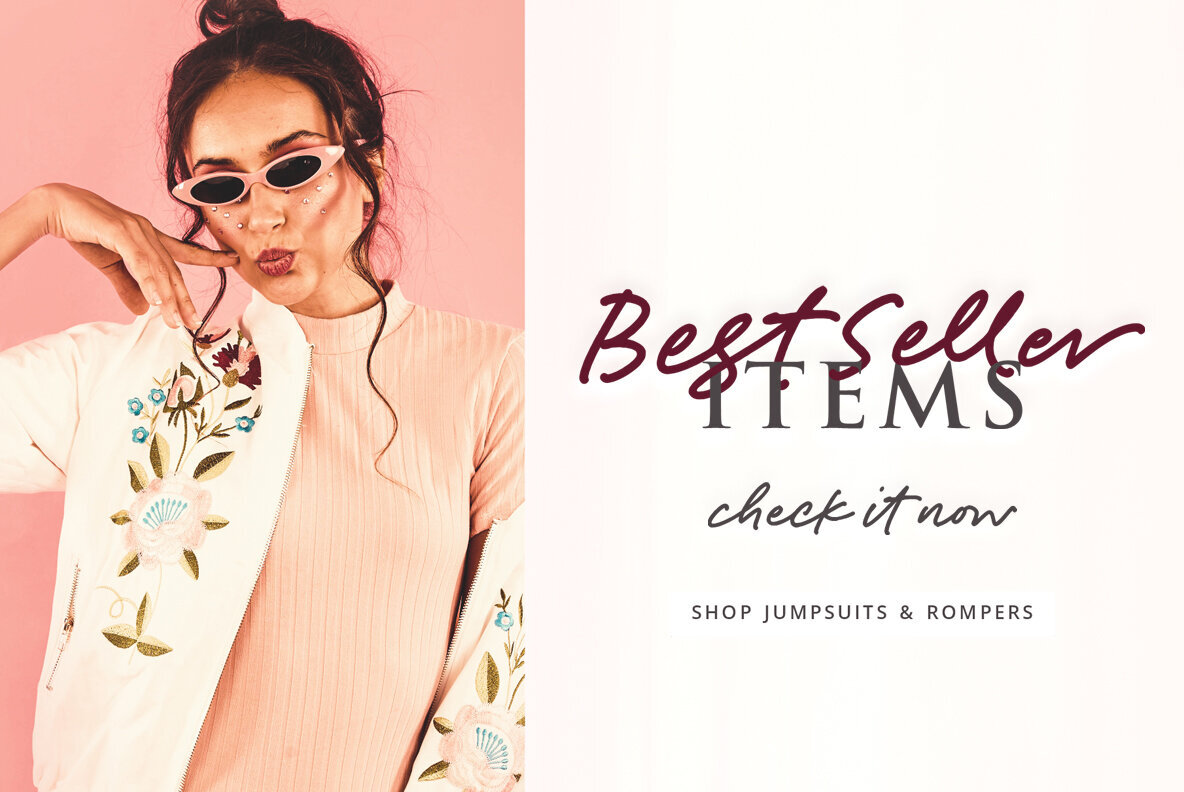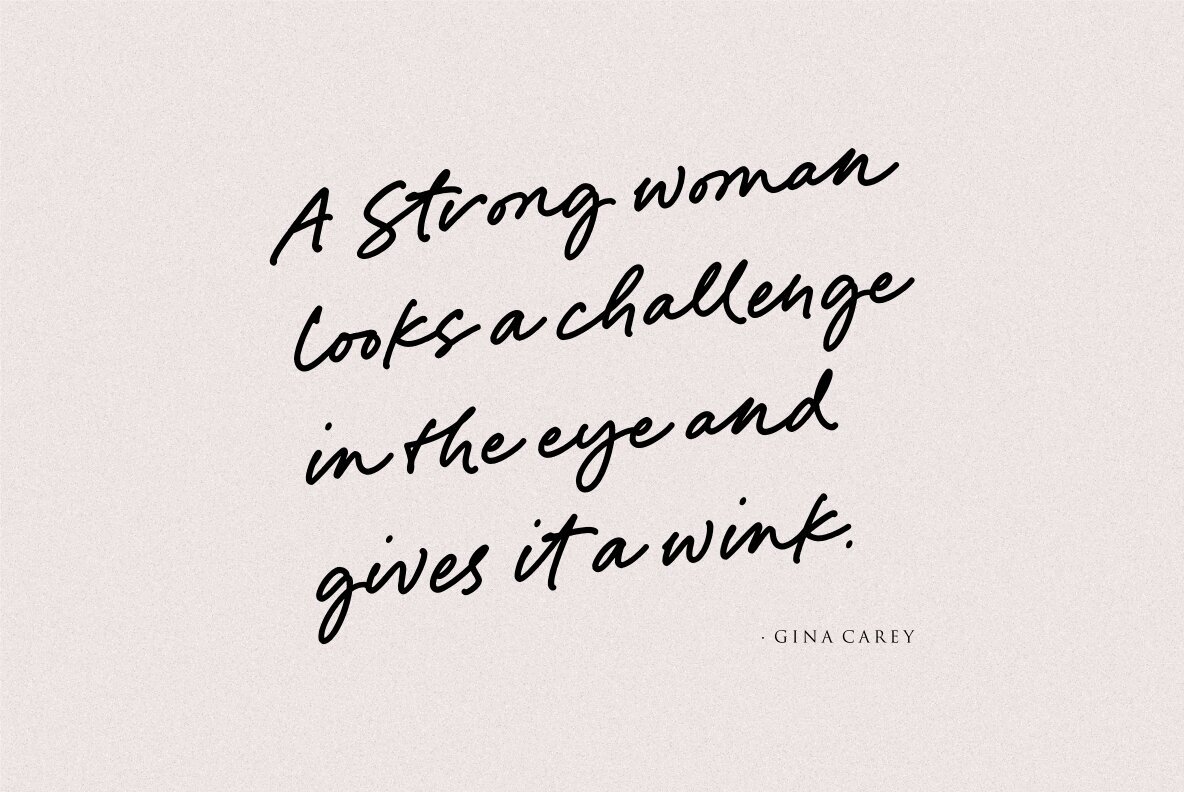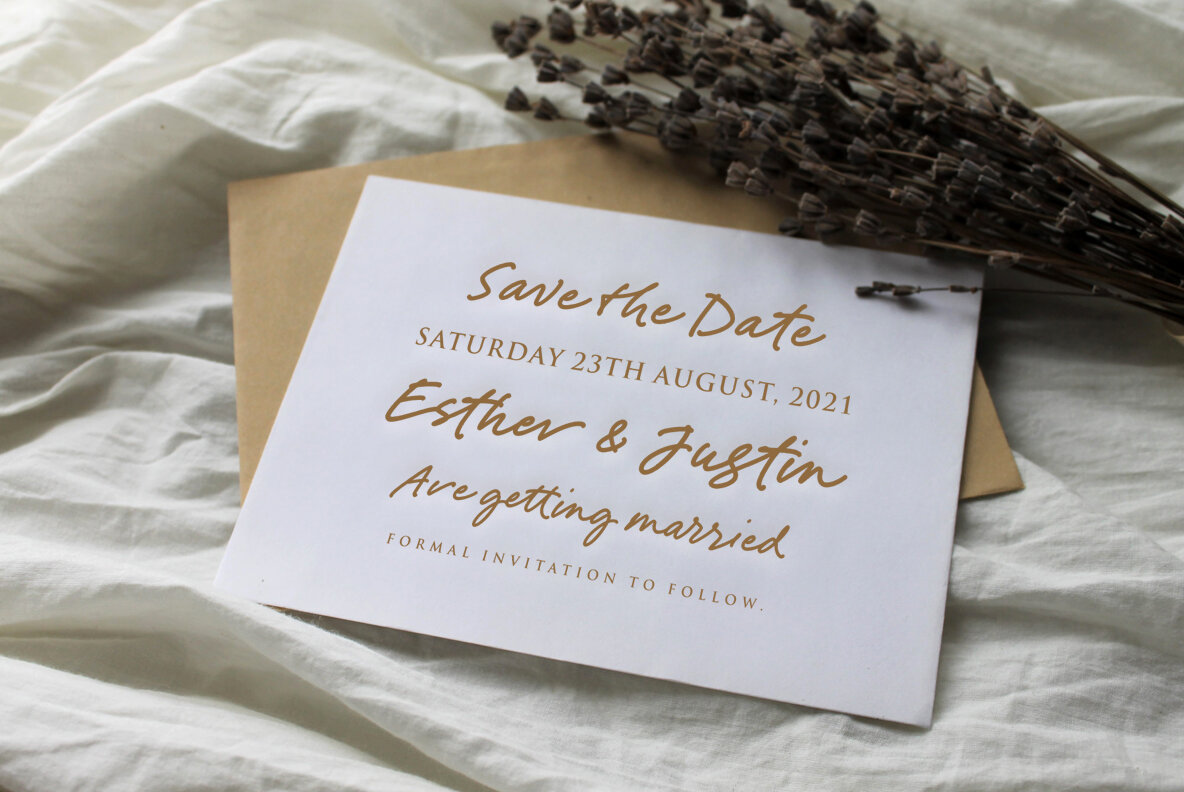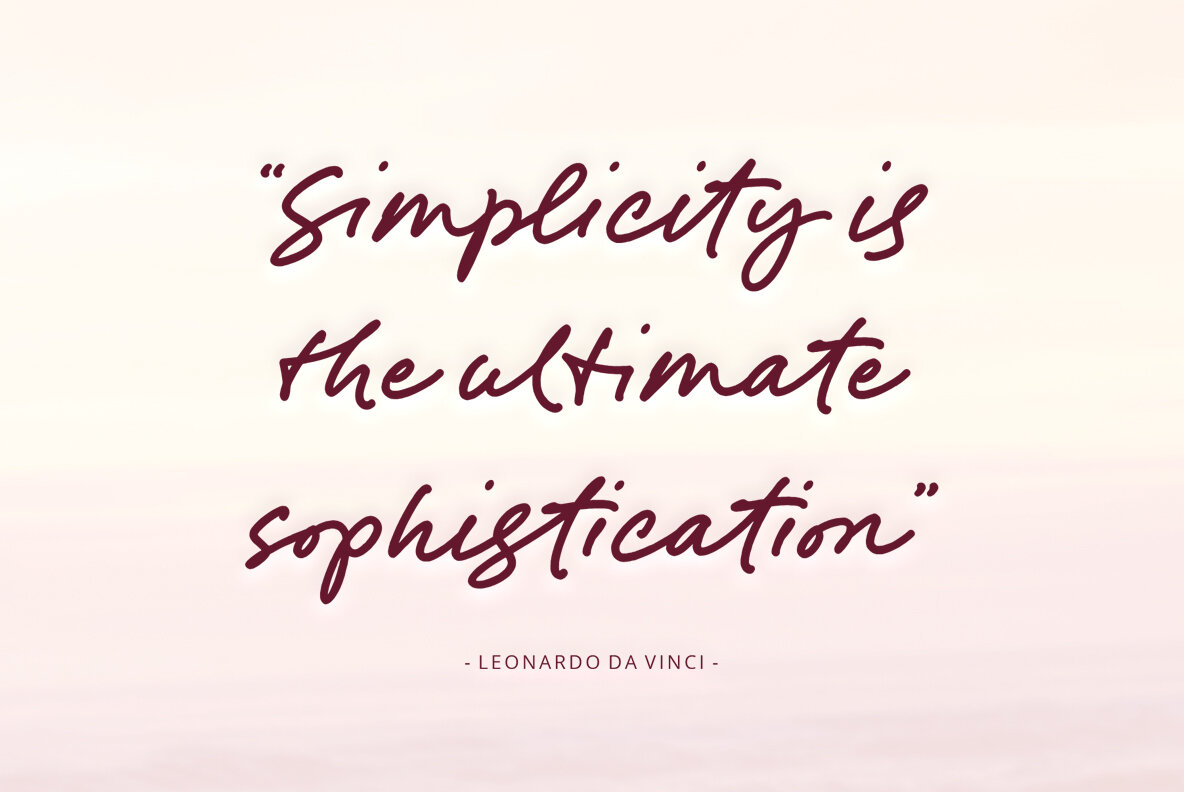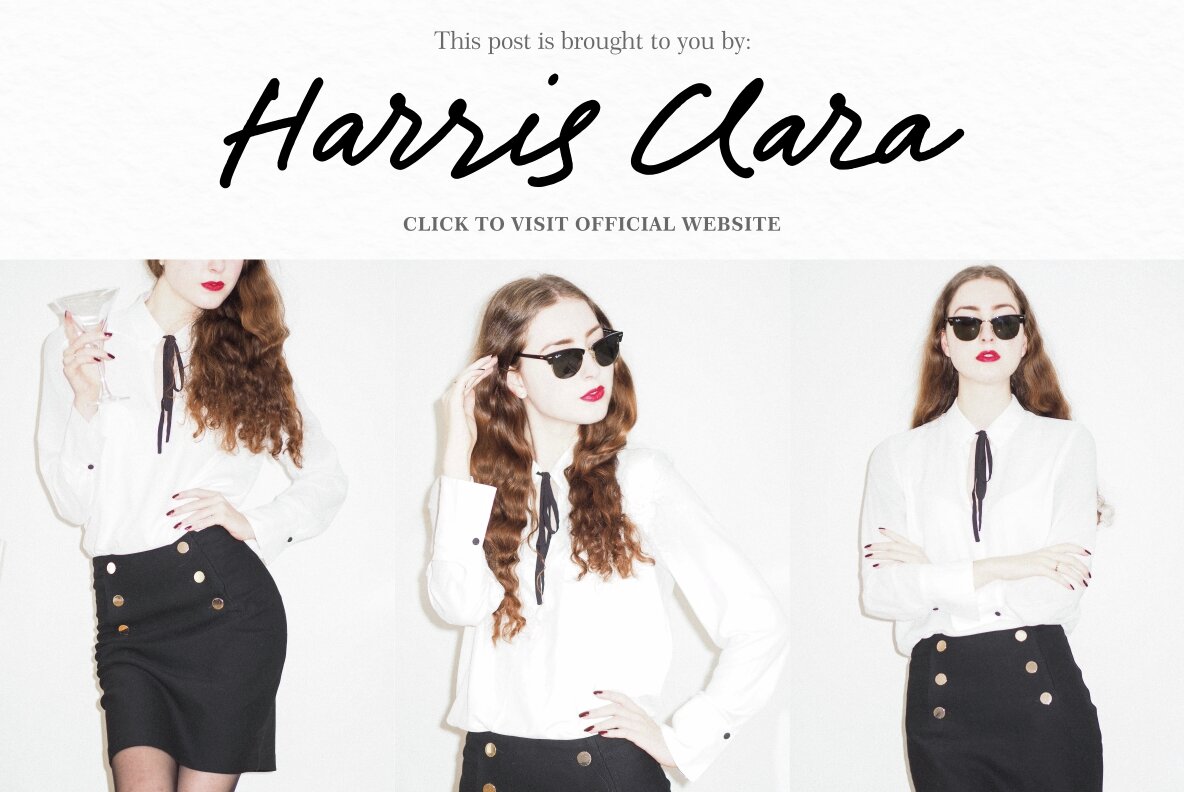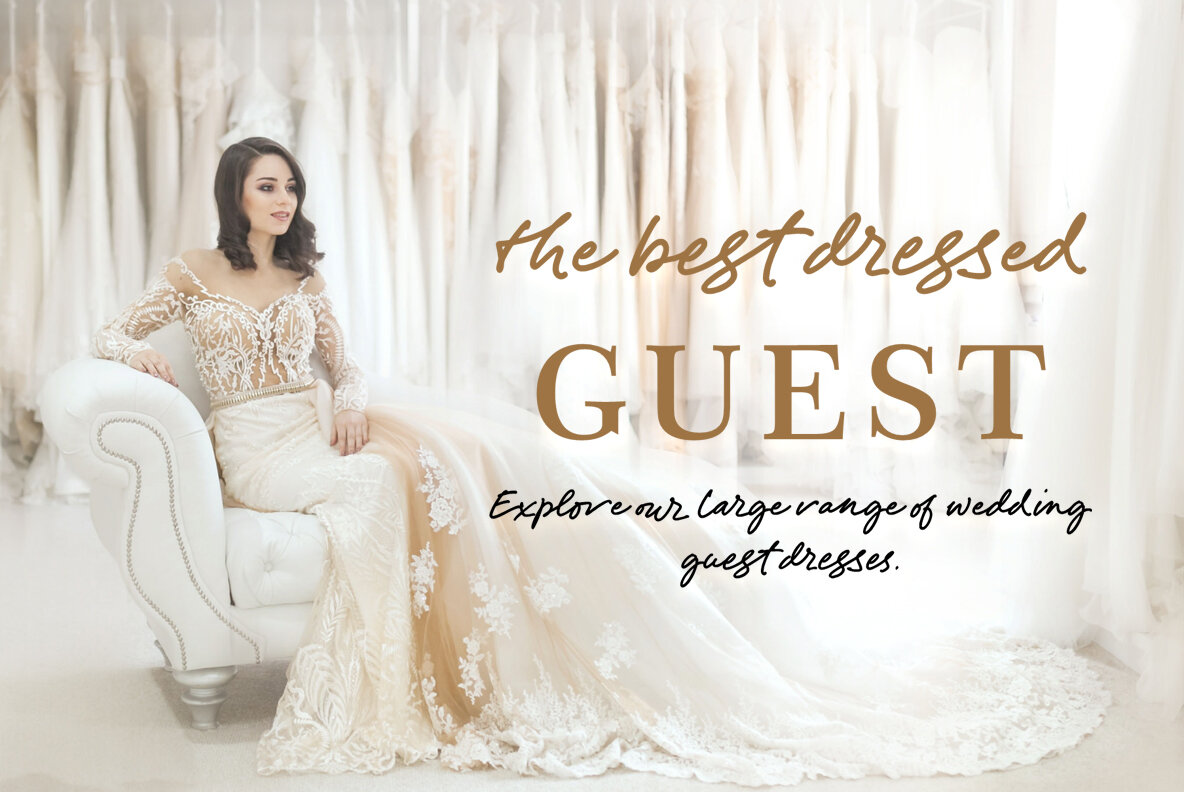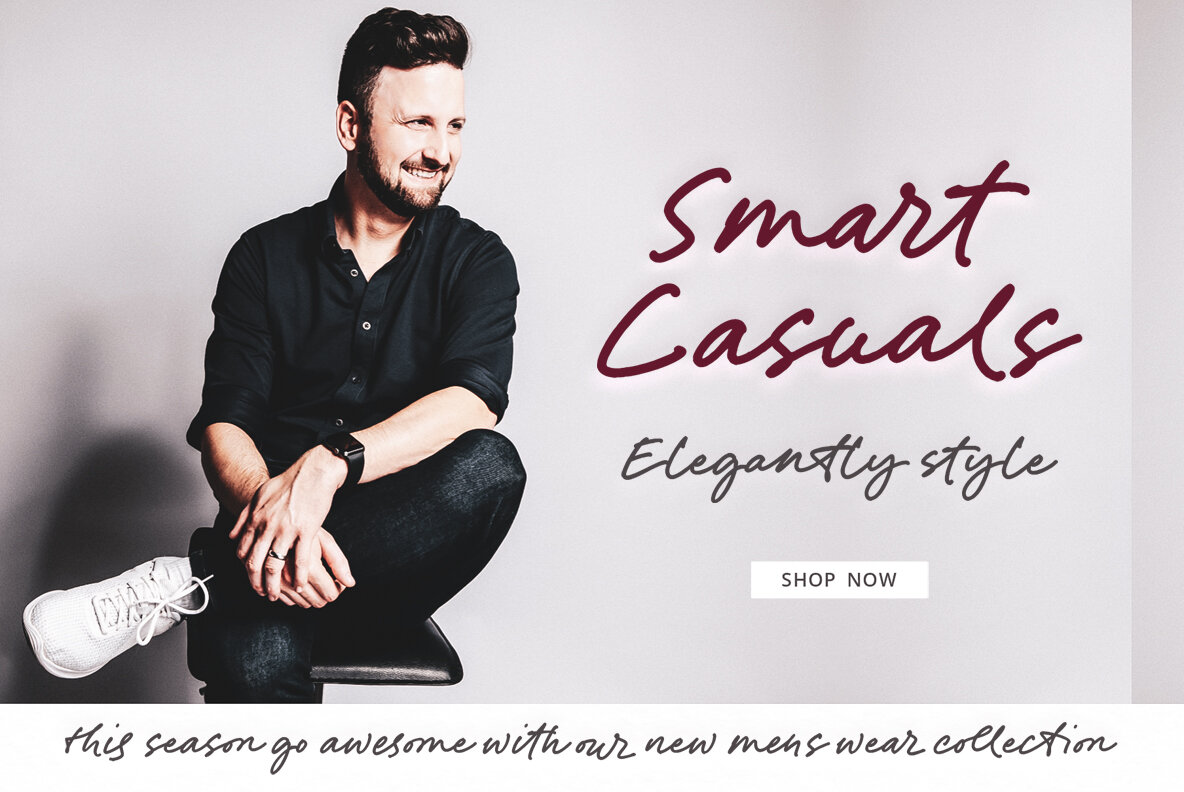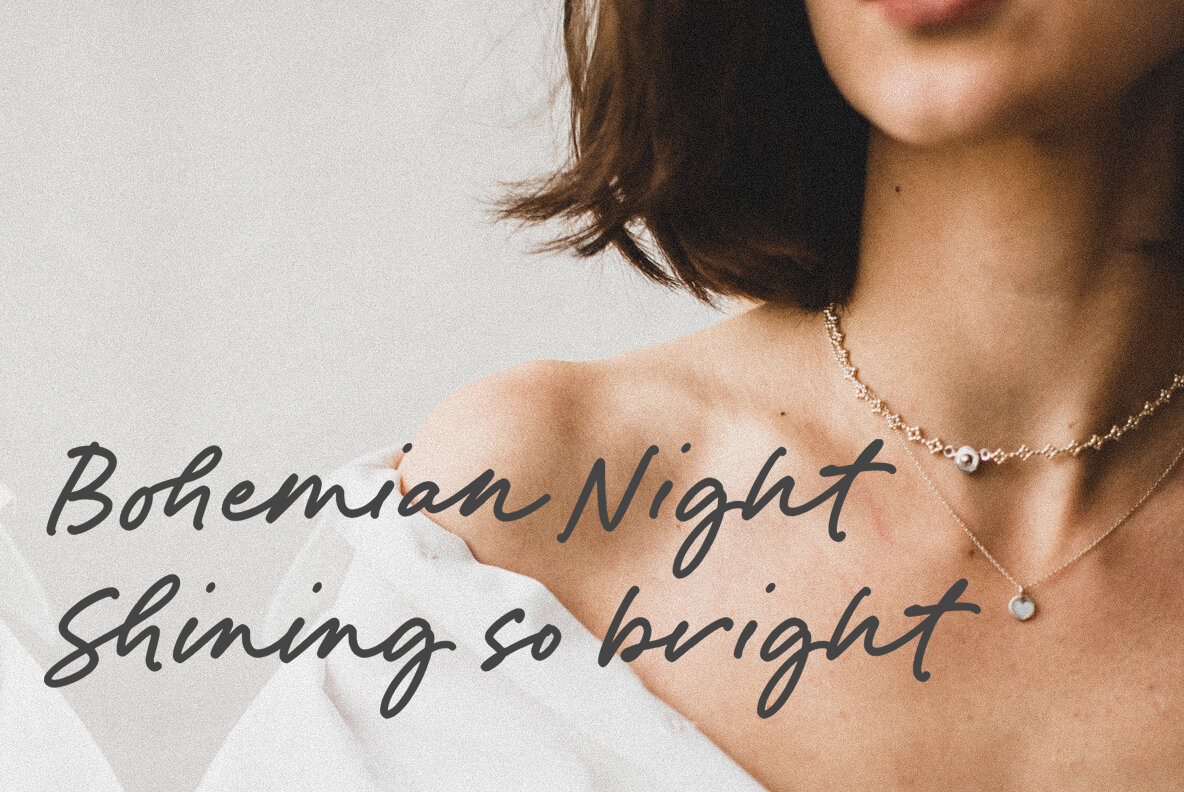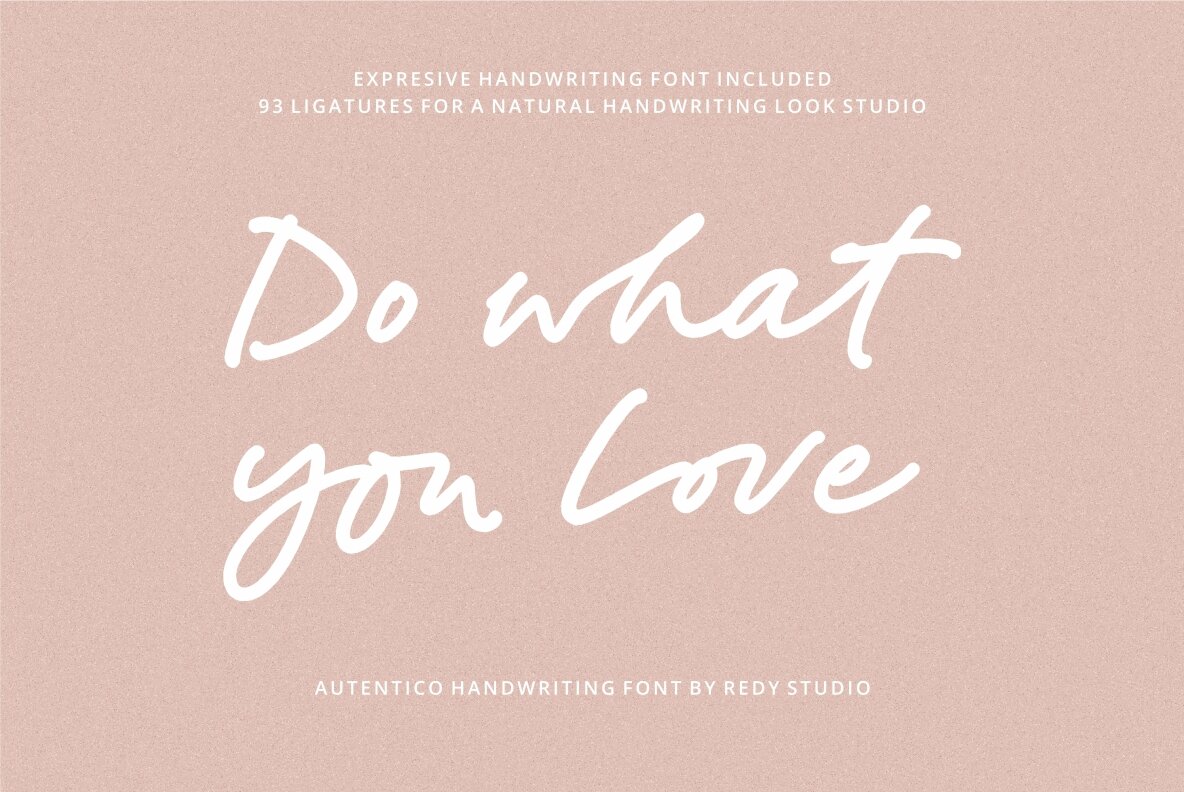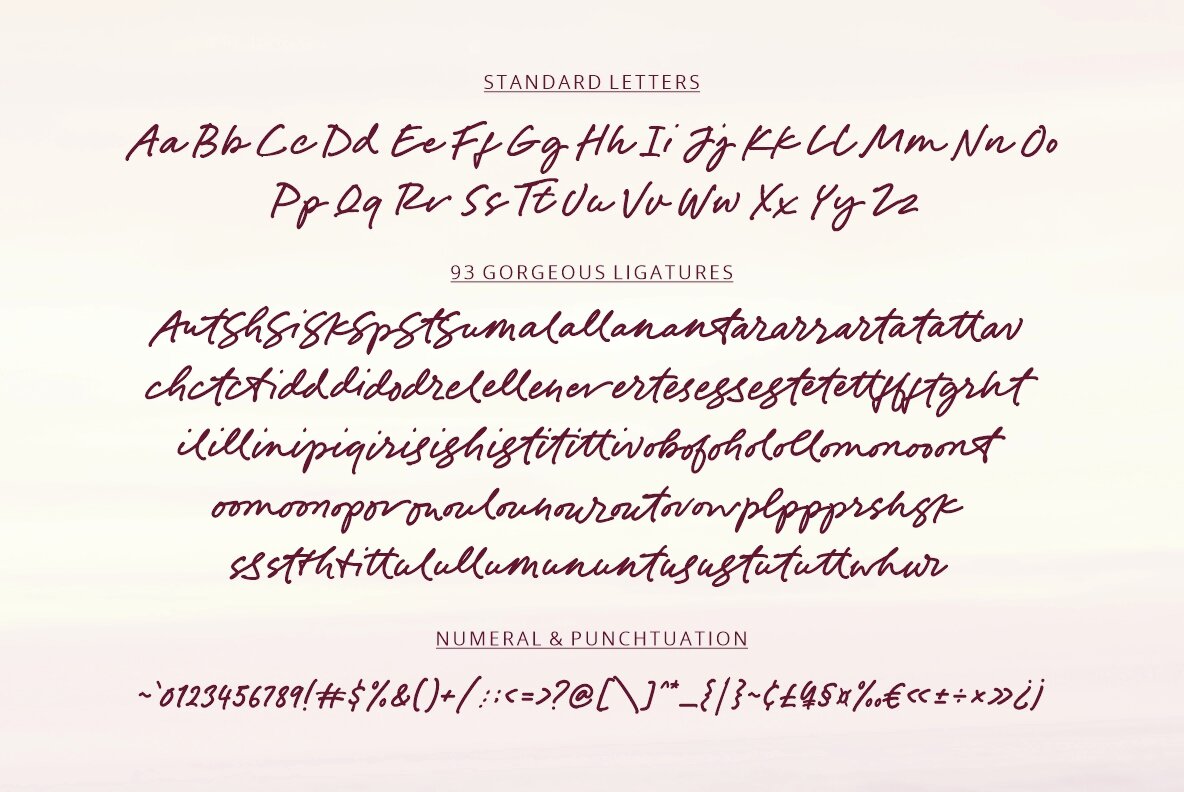
Autentico Font
Autentico by Nurul Fajri Redy presents a beautiful and stylish handwriting typeface that you'll adore. It combines the elegance of modern calligraphy with a more crushed aesthetic, making it ideal for wedding invitations, greeting cards, or logos. With its versatile uppercase letters, you can easily add a touch of sophistication to any design.Autentico: Handwriting Font with Modern Calligraphy Influence